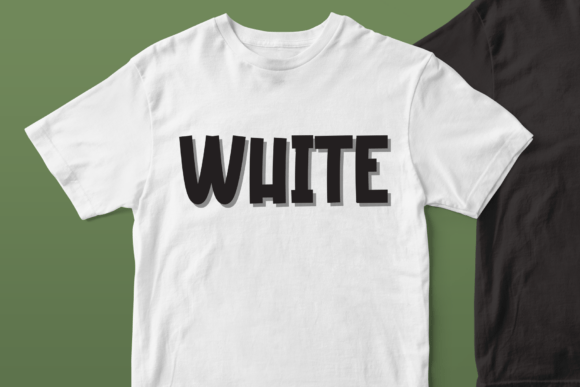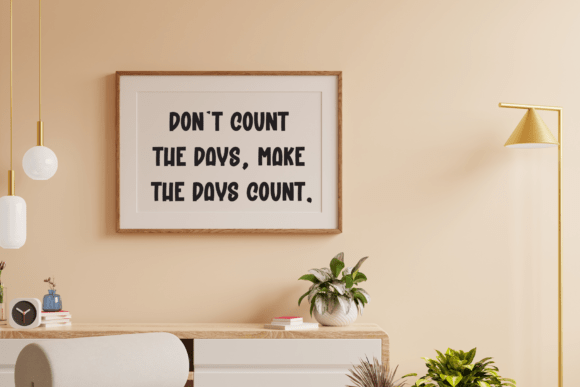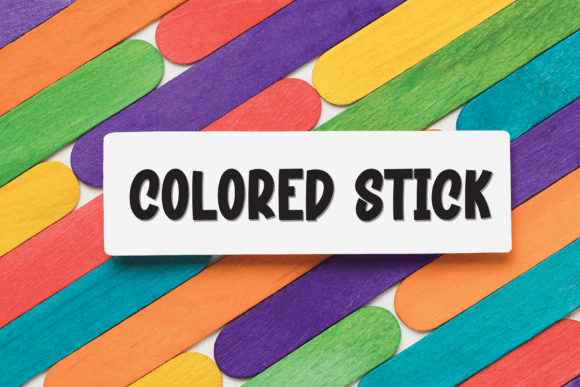
Animal Park Font
About the Animal Park Font
Get ready to be inspired by Animal Park Font, a fresh and dynamic typeface for modern creators. Introducing a charmingly delightful handwritten display font that embodies sweetness and affability in its design! This gem is not just cute and whimsical, but also fully functional, making it perfect for embellishing your wedding invitations, greeting cards, or any design that requires an injection of delightful character. This font adds a playful touch, effortlessly transforming your designs into conversation-starters!
Animal Park Font excels in headlines, short taglines, and logos where its playful charm shines. It’s ideal for branding projects targeting a younger demographic, children’s products, or businesses emphasizing fun and approachability. Avoid using it for large blocks of text or body copy; its whimsical nature can hinder readability in extended passages. Similarly, it’s not suitable for UI elements requiring high legibility.
The font’s inherently friendly personality pairs well with clean sans-serif fonts like Open Sans or Lato for a balanced contrast. For a more sophisticated feel, consider pairing it with a classic serif like Garamond or a slightly more modern serif like Playfair Display. Avoid pairing it with other highly decorative or script fonts, as this could create visual clutter.
Animal Park Font projects a light-hearted, approachable aesthetic. Its overall mood is best described as cheerful and friendly, making it unsuitable for projects requiring a formal or serious tone.
Animal Park Font Example